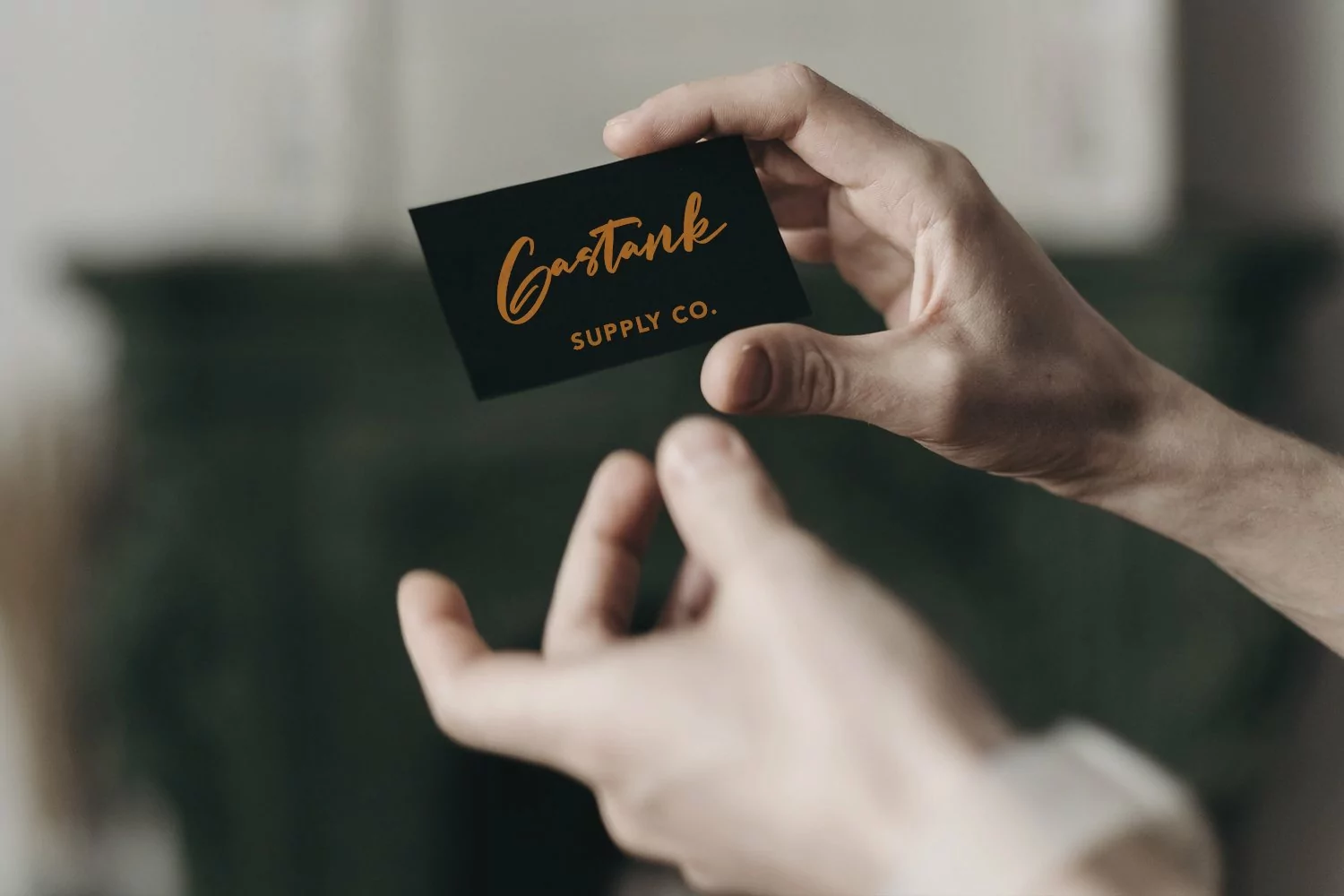
Gastank is a modern handwritten script font, With a rough marker brush stroke and fun characters. It has Opentype features of ligatures, makes it a perfect choice for branding and digital designs. Use this font for logos, social media, websites, blogs, instagram, social media, business cards, branding, and more! Gastank font support multilingual more than 100+ language. and good pair for your secondary text font with sans or serif. Make a stunning work with Gastank marker handwritten script font.